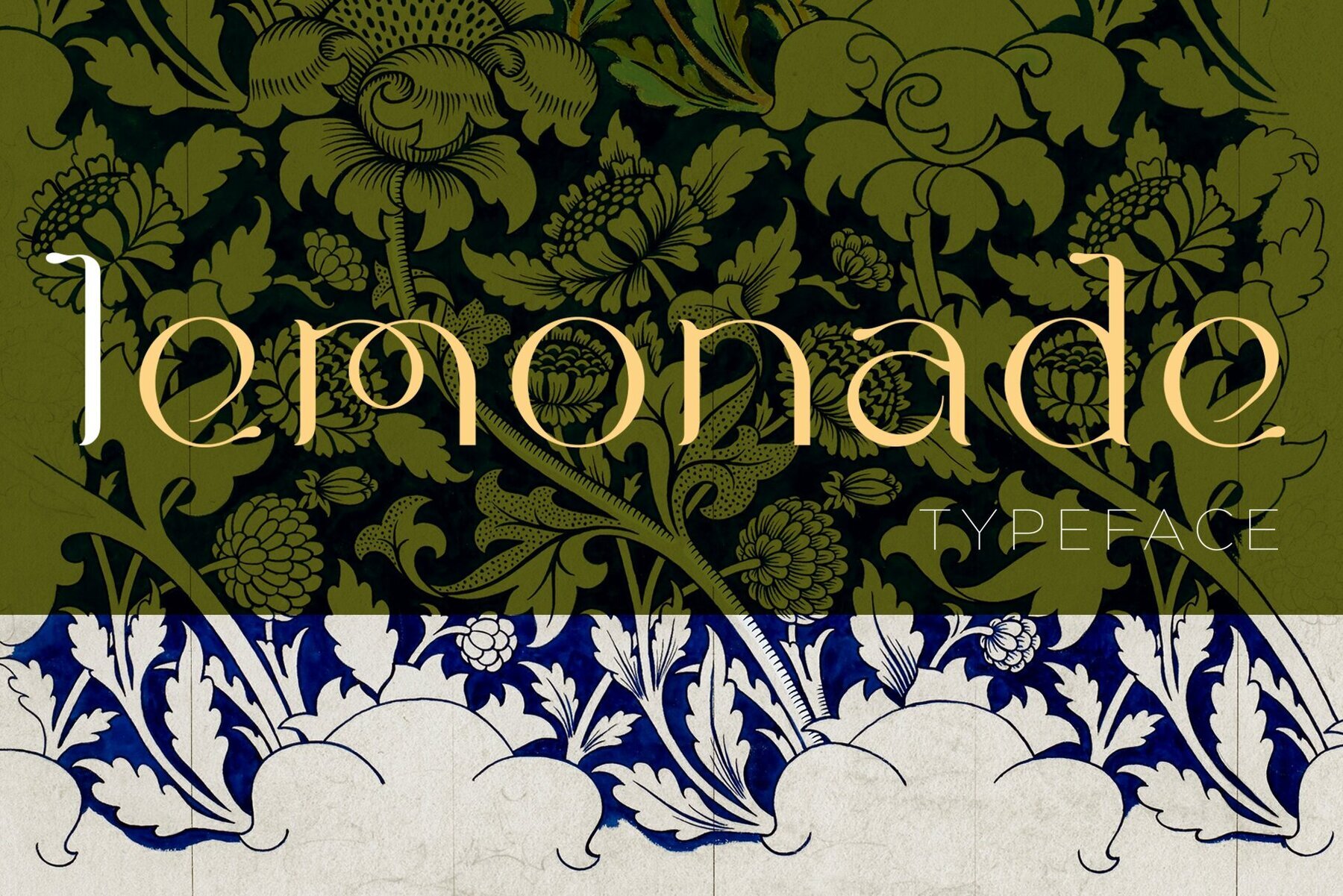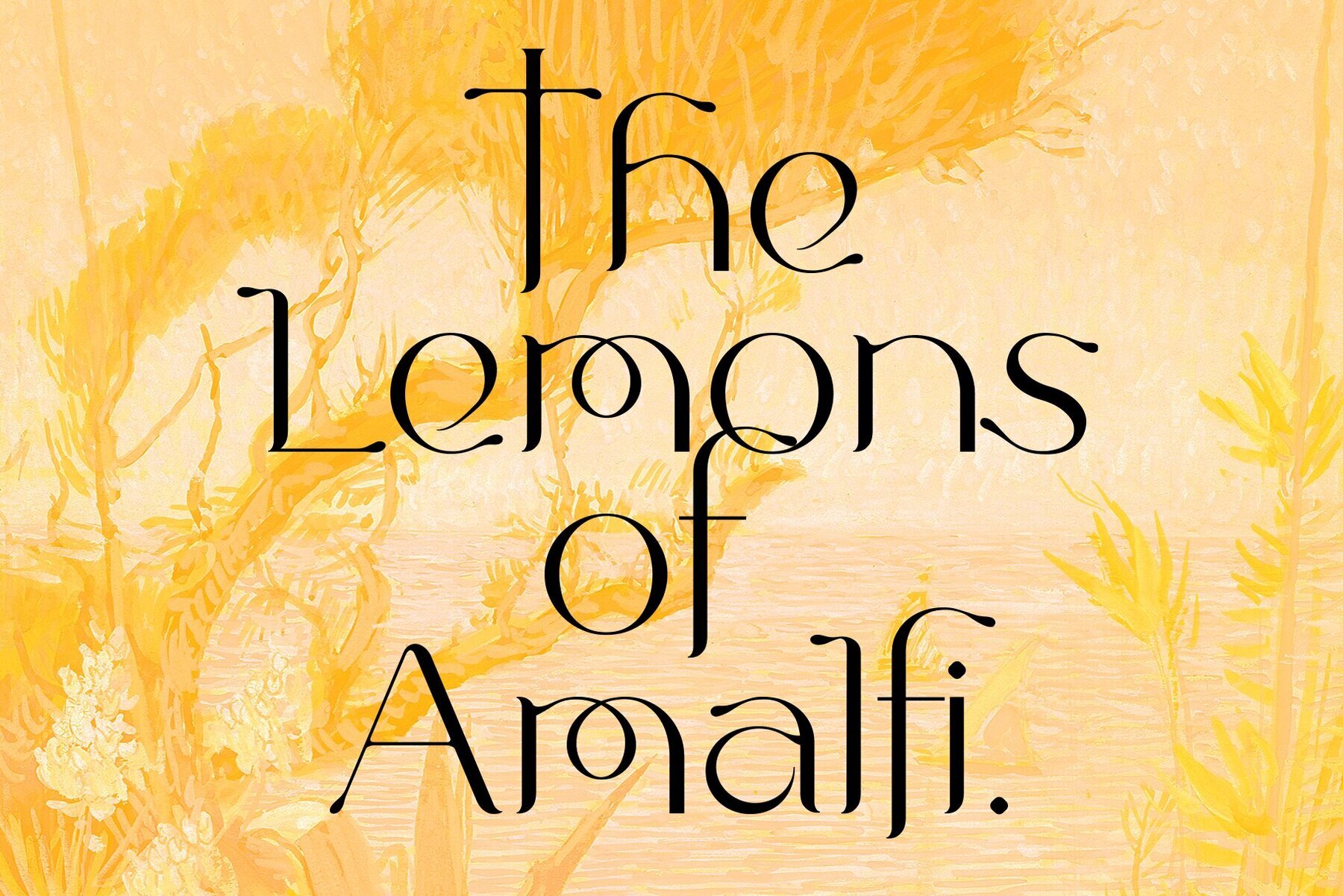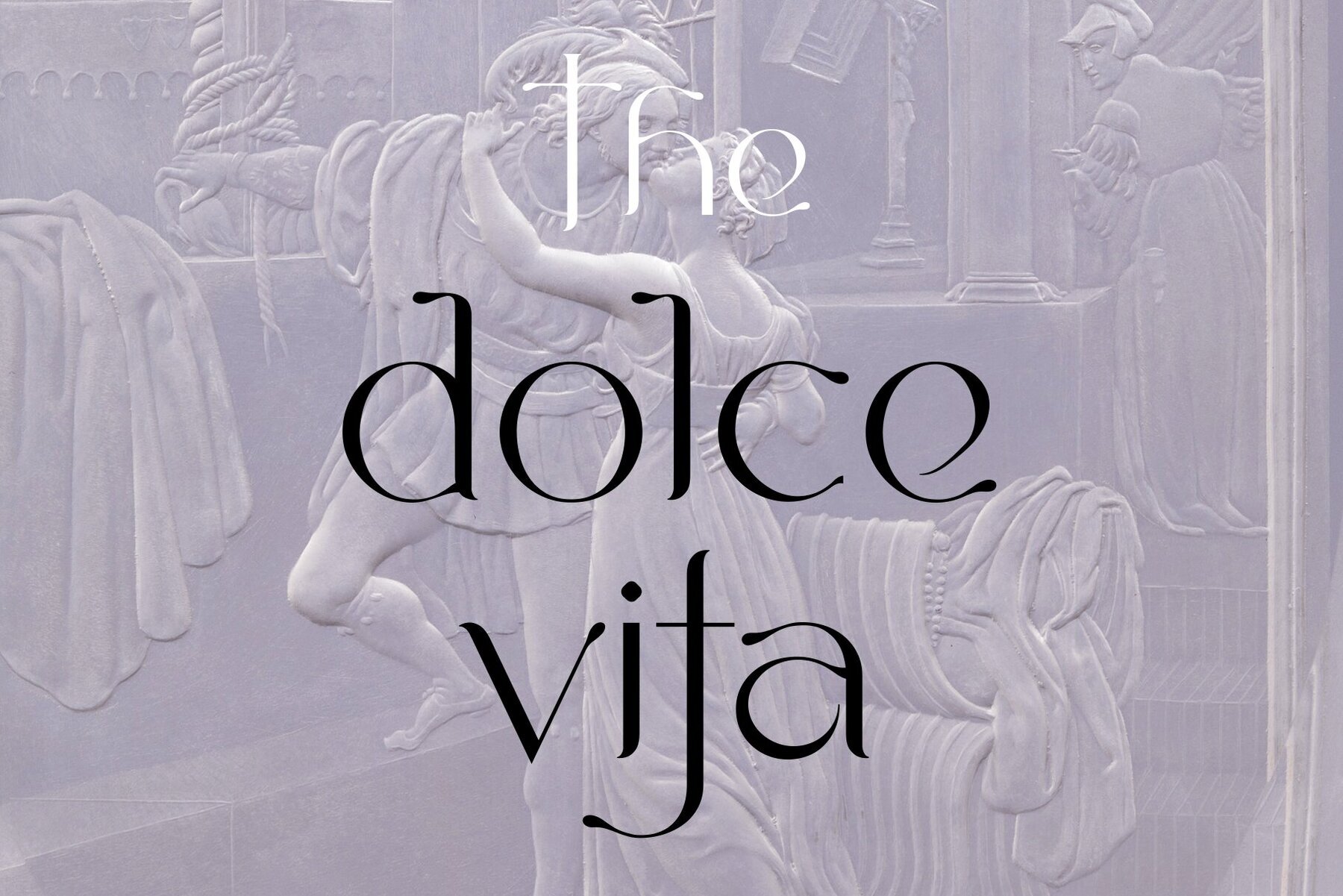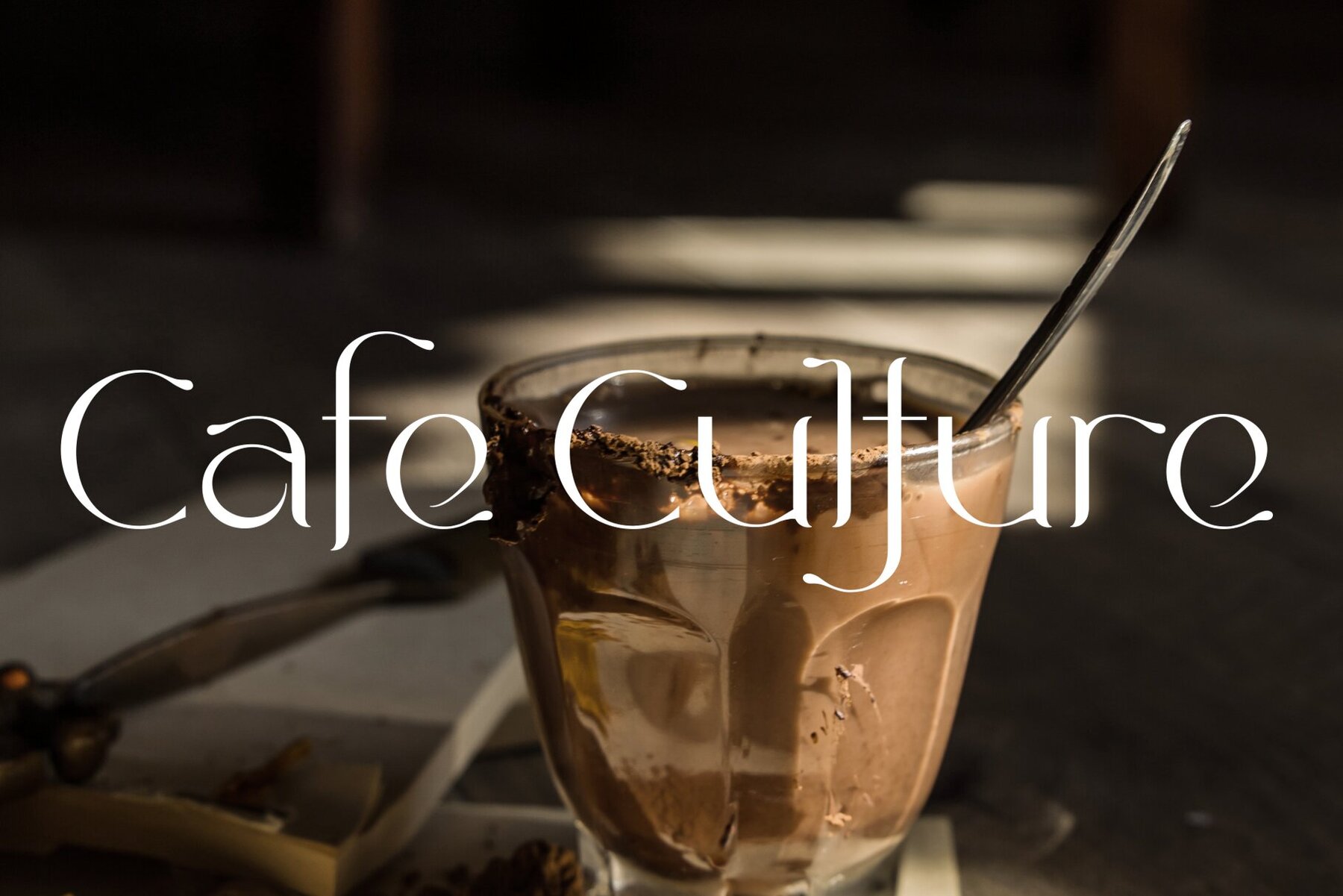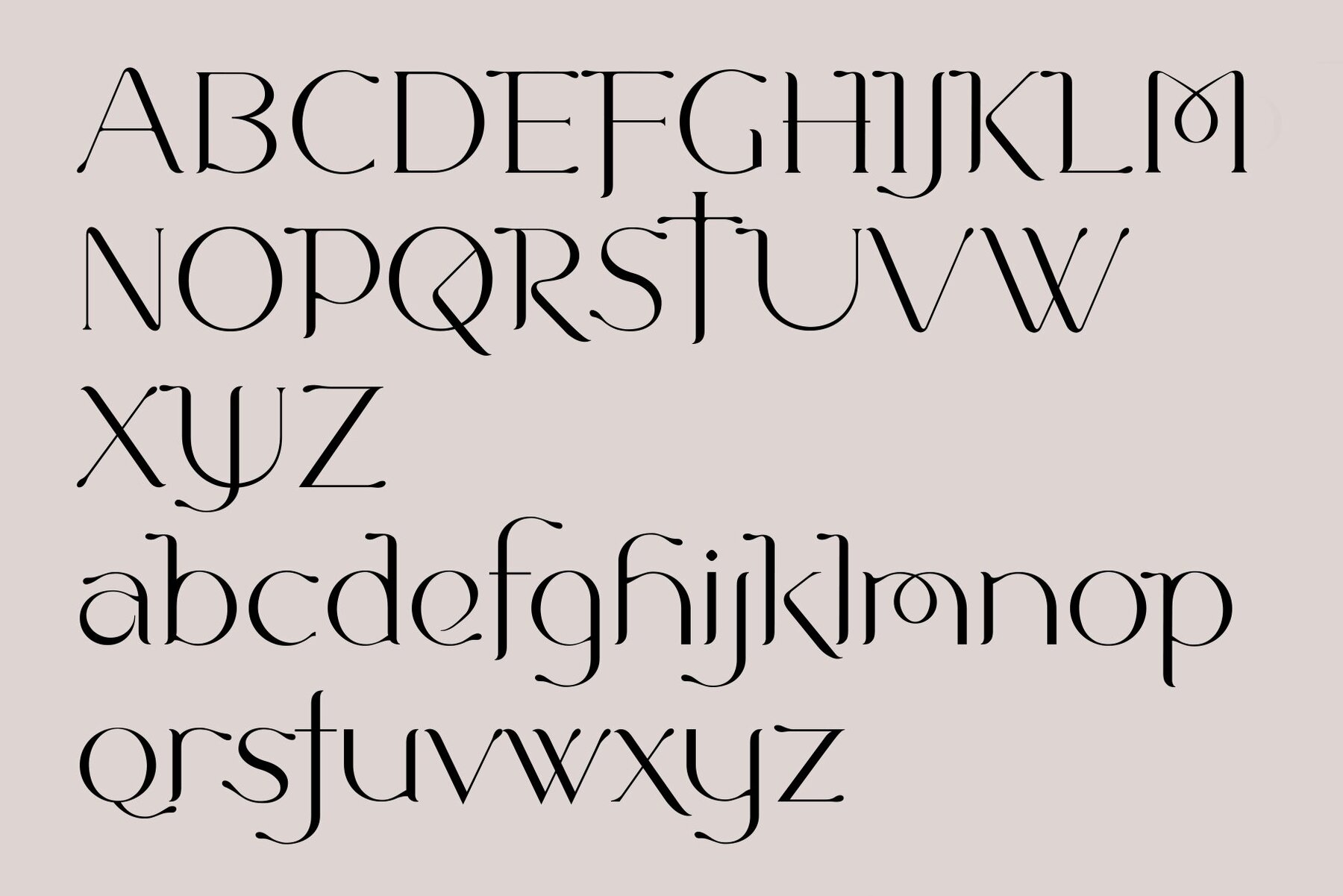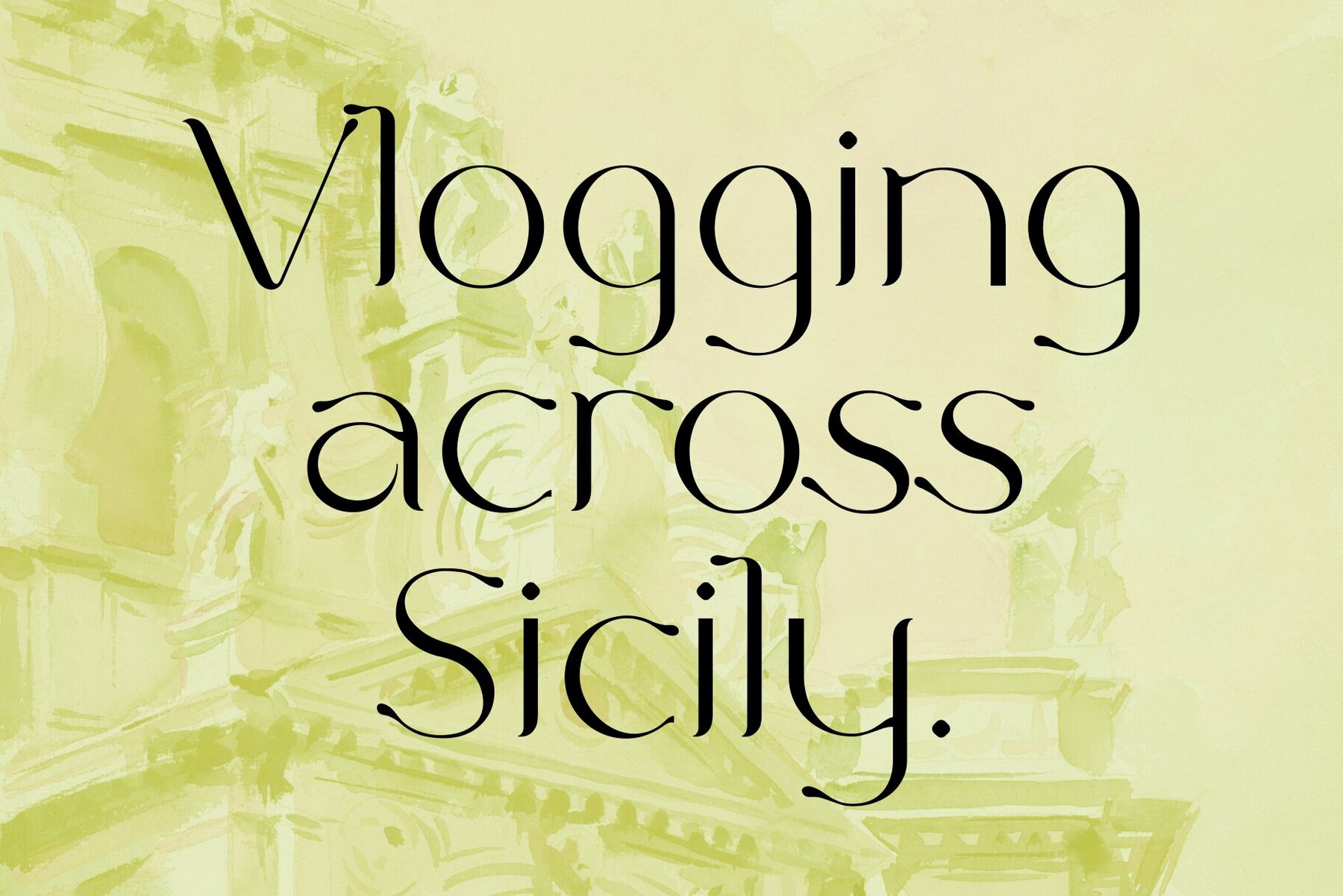
Lemonade Font
Lemonade is a chic and contemporary serif font crafted by LostandFoundry. It is designed to add a unique identity and character to your words, perfect for social media applications. Lemonade is perfect for a range of print and digital projects. Whether you're creating headlines, titles, logos, packaging designs, or wedding invitations, Lemonade provides a refined touch. In digital spaces, it's ideal for websites, blogs, vlog titles, YouTube creator titles, and social media post titles, making your content stand out with ease.Lemonade: Chic Contemporary Serif from LostandFoundry